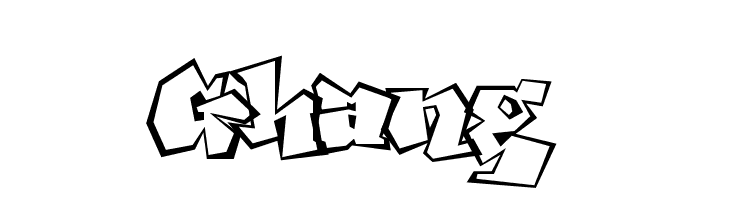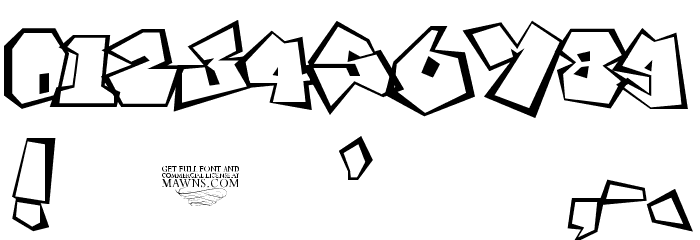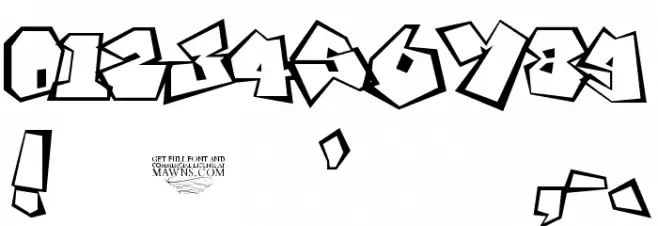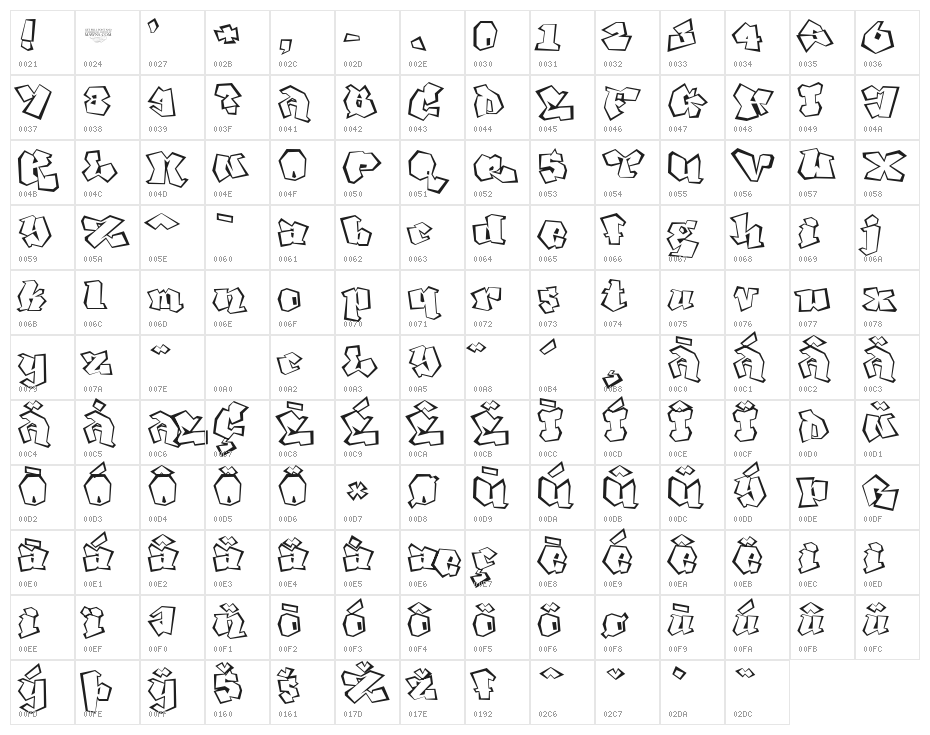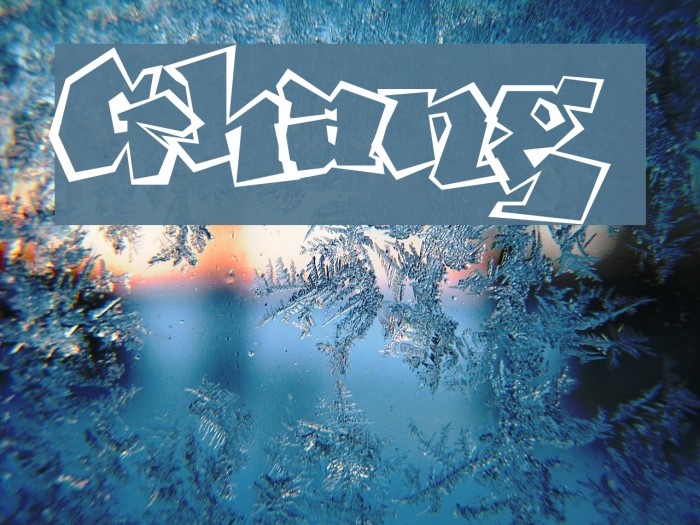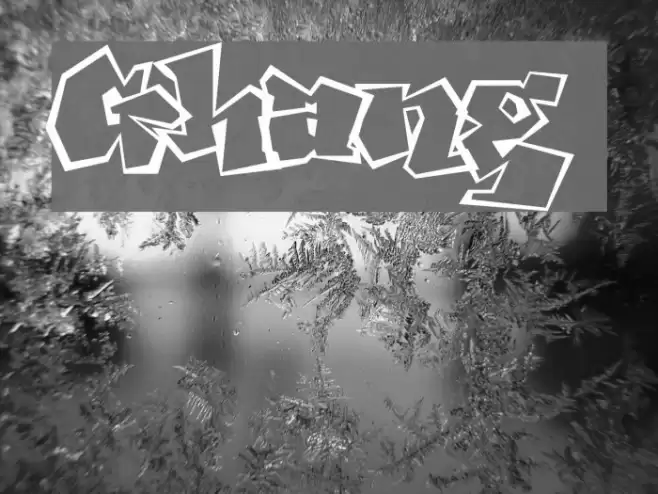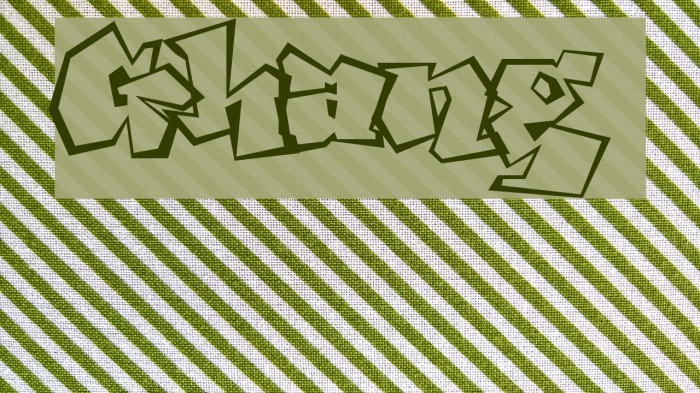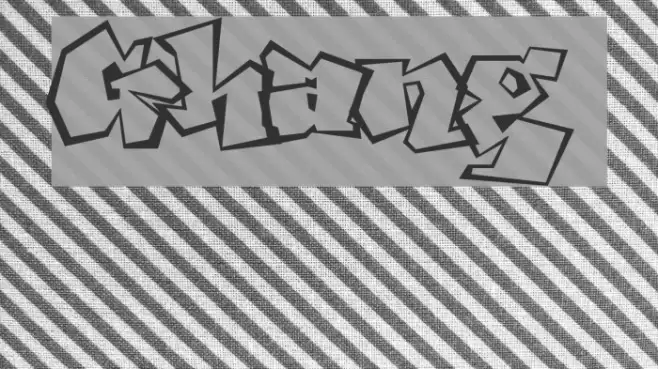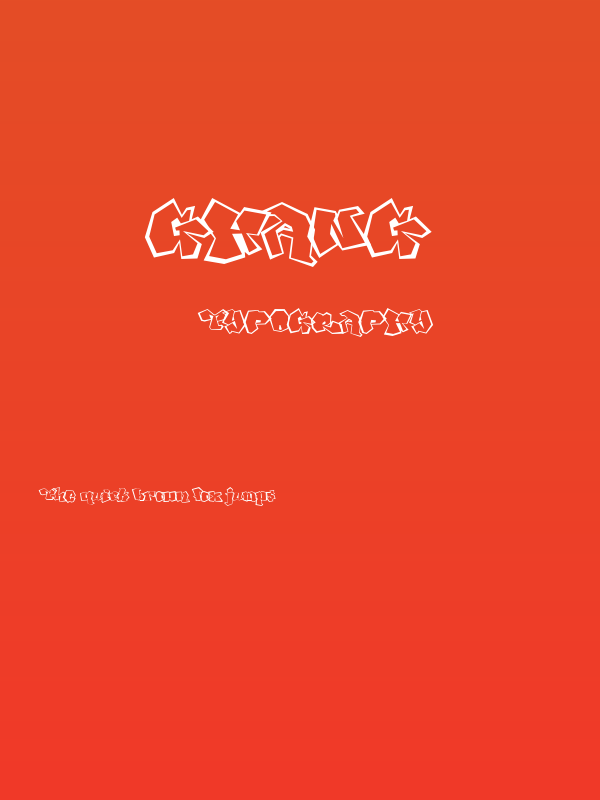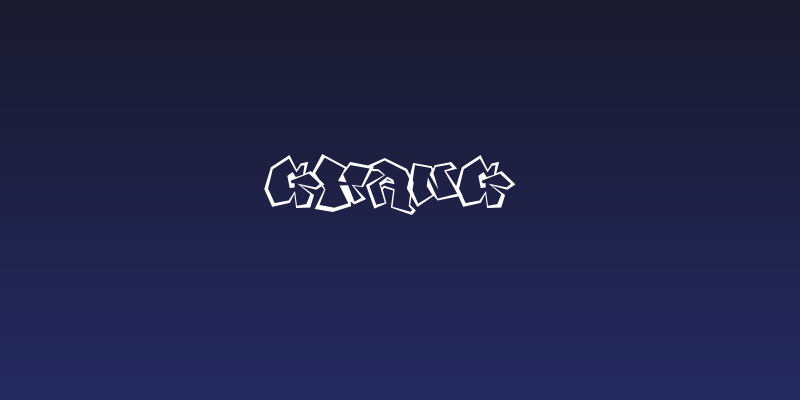
Ghang Font
Ghang Description
This font features a bold, graffiti-inspired style with angular, geometric shapes and a three-dimensional effect. The letters are outlined with a thick black border, giving them a striking and edgy appearance. The uppercase and lowercase letters maintain a consistent style, with sharp edges and a sense of movement. Numbers and special characters follow the same design, ensuring a cohesive look across all text elements. This font is ideal for projects that require a bold and urban aesthetic, such as street art designs, music album covers, or edgy branding materials.
| Overall Style | Urban, Edgy, Modern |
| Proposed Projects | Street art designs, music album covers, edgy branding materials. |